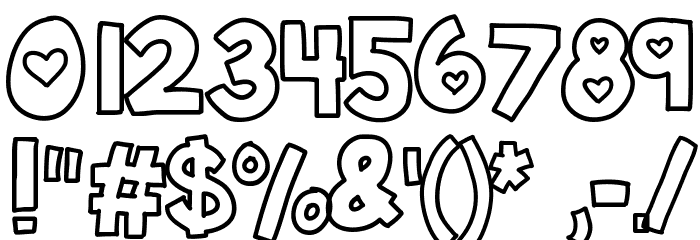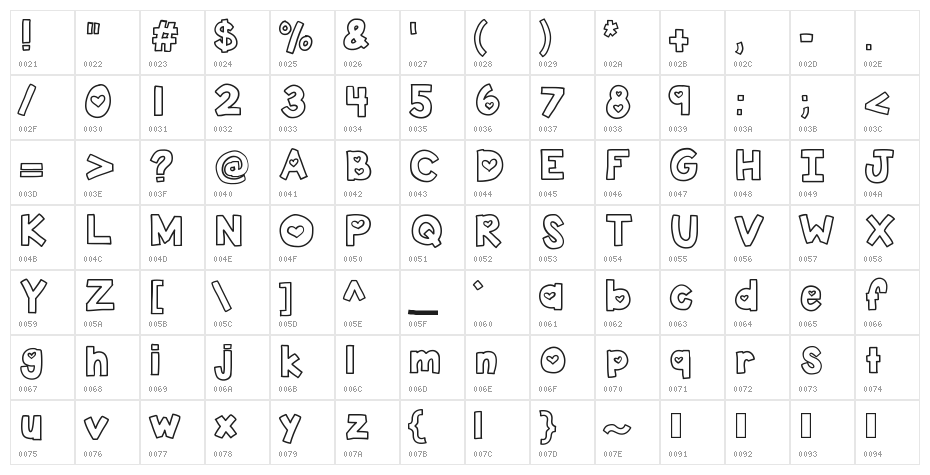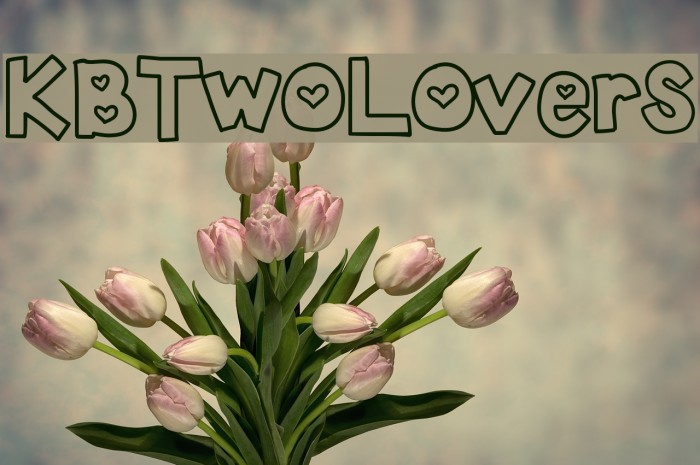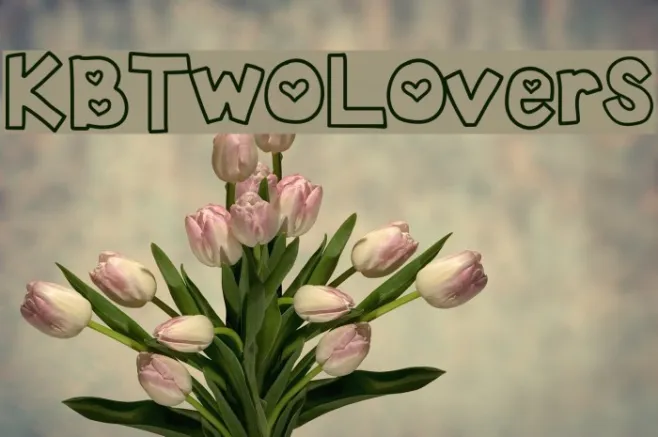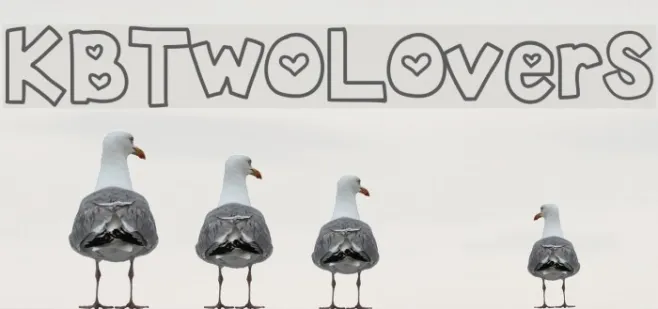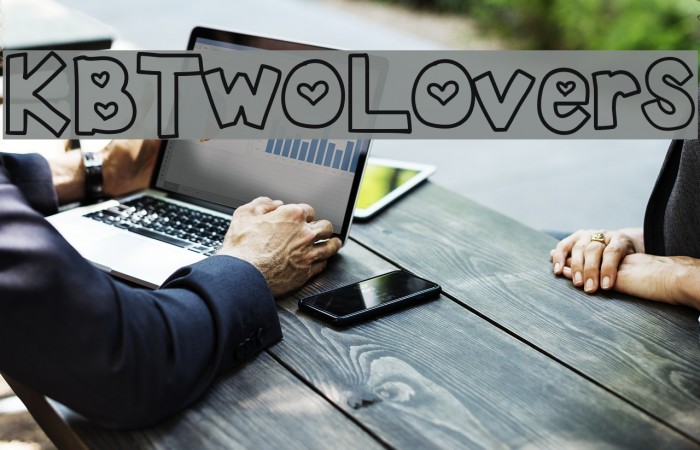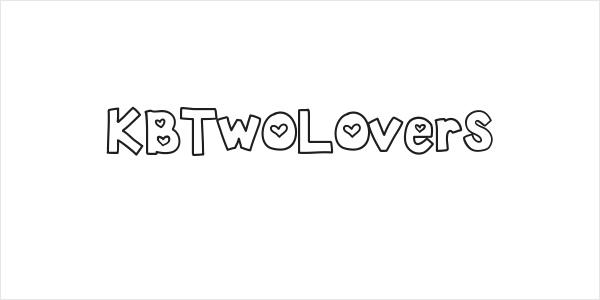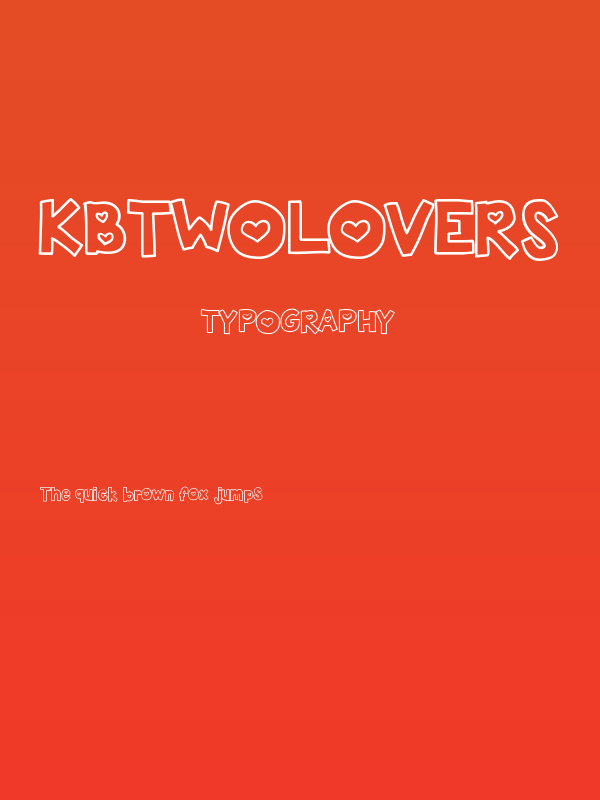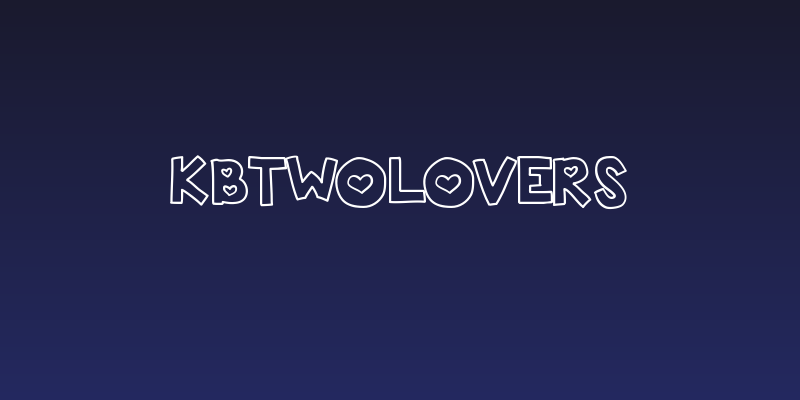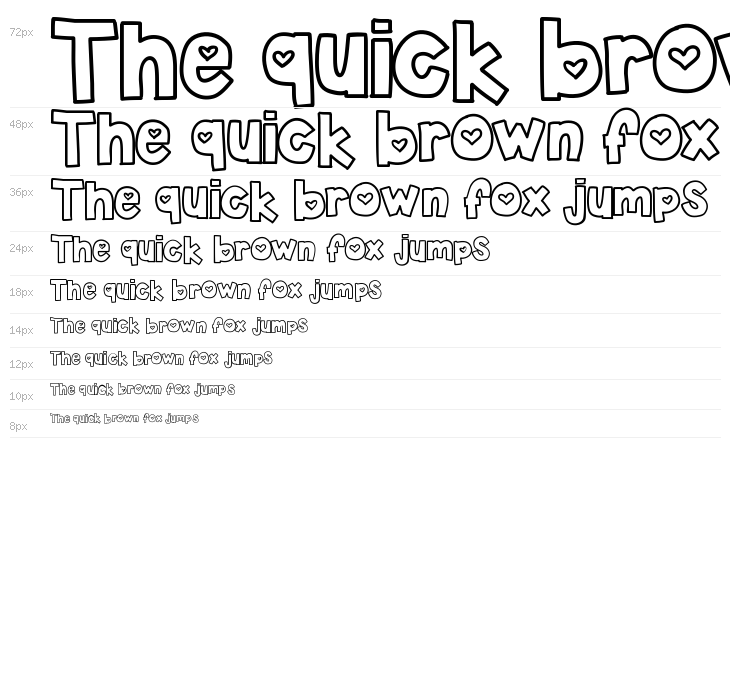
KBTwoLovers Font
KBTwoLovers Description
This playful and whimsical font features bold, outlined characters with a heart motif integrated into the design, giving it a charming and romantic feel. The uppercase and lowercase letters are consistent in style, with rounded edges and a friendly appearance. The numbers and special characters maintain the same playful aesthetic, making the font versatile for various creative projects. The heart shapes embedded in some of the letters add a unique touch, making it ideal for designs that require a fun and loving vibe.
| Overall Style | Playful, Romantic, Whimsical |
| Proposed Projects | Ideal for Valentine's Day cards, wedding invitations, children's books, playful branding, and any project that requires a touch of love and fun. |